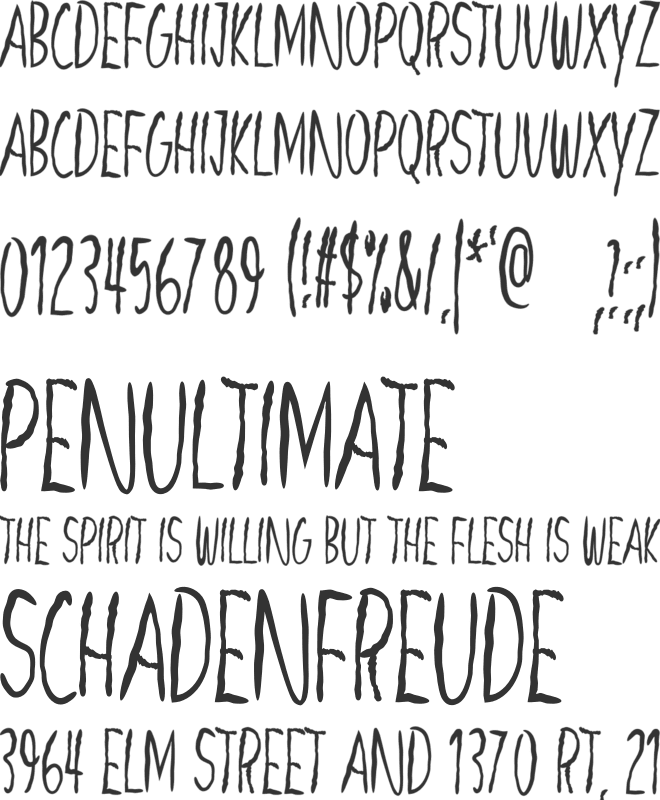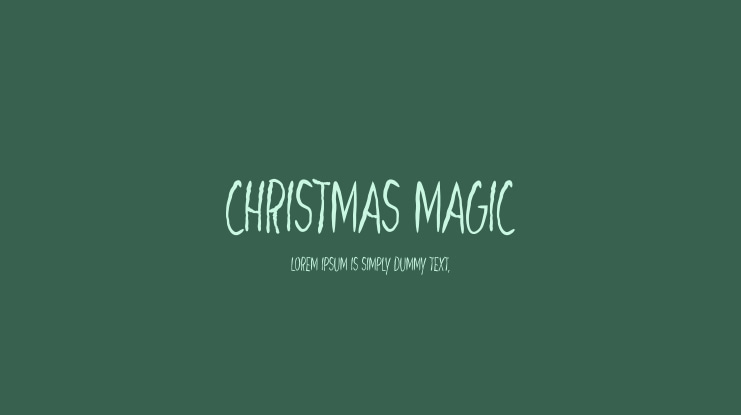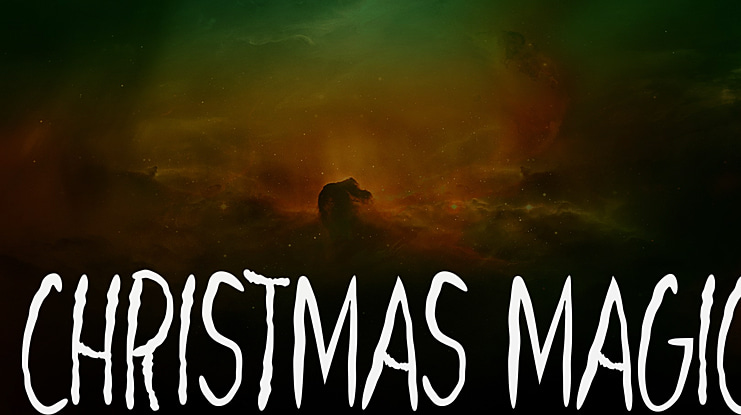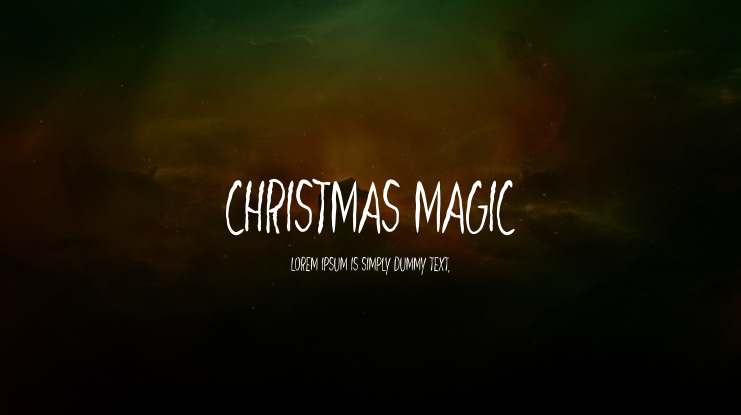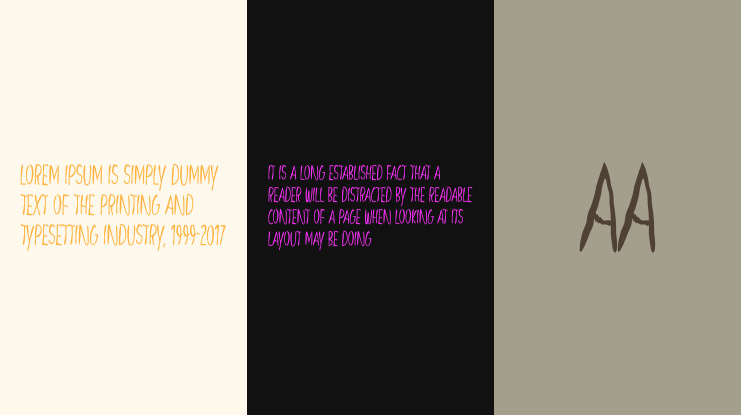
Christmas Magic Font
Christmas Magic is a simple, cute and elegant handwritten font. Add this amazing font to each of your creative holiday designs, and notice how they level up.